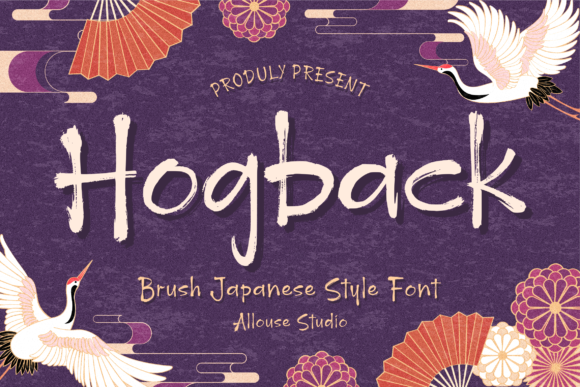
Discover the Unique Charm of Hogback Font
Have you ever stumbled upon a font that just makes you want to get creative? For designers, it’s that ‘aha’ moment when the perfect font pops up, and the project suddenly comes alive. For me, that moment came when I discovered the Hogback Font – a cool, casual, and interesting brushed display font that’s perfect for urban designs and projects.
As a versatile font, Hogback Font can add a touch of personality to any design. Whether you’re working on a graffiti-inspired poster or a trendy t-shirt design, Hogback Font’s unique charm is sure to captivate your audience. Its casual, laid-back vibe makes it an ideal choice for designers looking to add some edge to their projects.
With Hogback Font, you’ll be able to confidently add a touch of urban cool to your designs, and the results will be nothing short of amazing. Whether you’re a seasoned designer or just starting out, this font is sure to become a valuable addition to your toolkit.
Hogback Font Key Features
- Unique Characteristic: Hogback Font features a distinctive, hand-drawn aesthetic with subtle irregularities, giving it a human touch.
Hogback Font Review
As a designer, I was excited to dive into the Hogback Font and see what it had to offer. Overall, I think it’s a solid addition to any design project, but it’s not without its limitations. ✨
- Unique aesthetic: Hogback Font has a distinctive, hand-drawn feel that sets it apart from more common sans-serif fonts.
- High-quality rendering: The font is well-rendered and looks great at various sizes and resolutions.
- Legibility: Despite its quirky feel, Hogback Font is surprisingly legible, making it a good choice for body text.
- Limited character set: Hogback Font is still a relatively new release, and its character set is limited compared to more established fonts.
- Lack of language support: As of my review, Hogback Font doesn’t support many non-Latin languages, which may limit its use in global design projects.
- Not ideal for headings: While Hogback Font is great for body text, it may not be the best choice for headings due to its relatively low x-height.
- ⚠️ May not be suitable for fine print: Hogback Font’s unique style may not be ideal for small print, as it can be difficult to read at very small sizes.
Overall, I think Hogback Font is a great choice for designers looking for a unique, high-quality font for body text. However, its limitations should be carefully considered before using it for headings or in global design projects.
Hogback Font: A Practical Application Guide
Tips for Getting the Most Out of Hogback Font
To maximize the impact of the Hogback font, use it in conjunction with bold or italic text to create visual interest. You can also use the font in combination with other decorative fonts to create a unique and eye-catching design.
The Hogback font is commonly used in creative and artistic projects, such as:
- Graphic design and branding
- Typography-based art and illustrations
- Headlines and titles in marketing materials
Alternatives to Hogback Font for Designers
Great Vibes is a modern script font that resembles hand-drawn lettering. It’s perfect for creating a friendly, approachable atmosphere in designs. Great Vibes is ideal for use in logos, invitations, and other materials where a casual, handwritten feel is desired.
Compared to Hogback Font, Great Vibes has a more fluid, cursive feel, making it better suited for projects that require a softer, more personal touch.